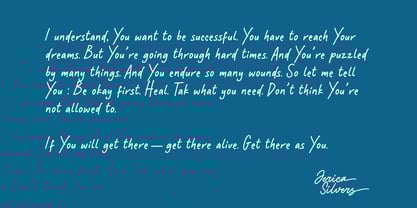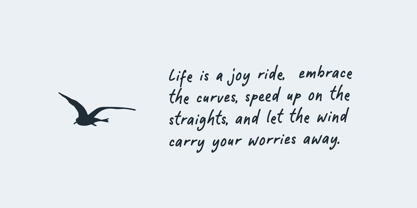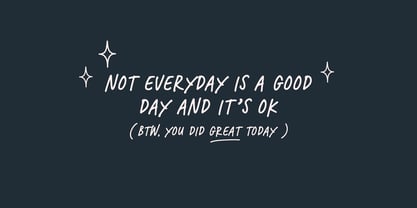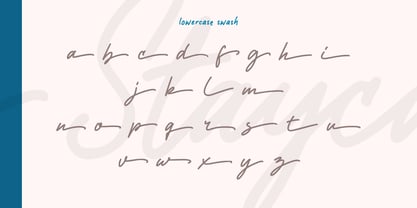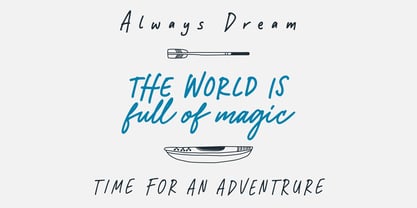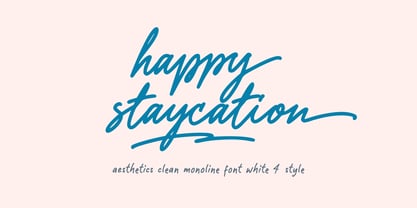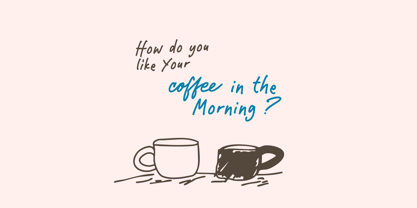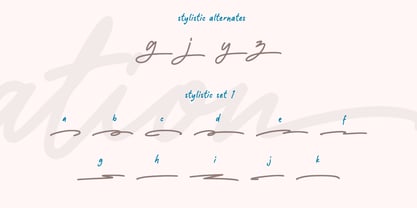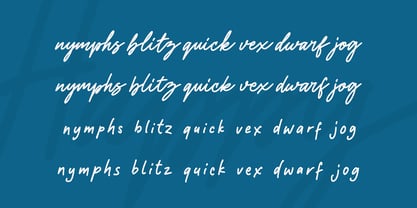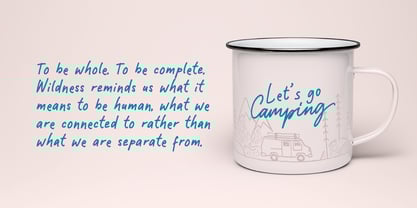
Happy Staycation
by Enbe Studio
The Happy Staycation Font Family was designed by Winarno, Eko Kurniawan and published by Enbe Studio. Happy Staycation contains 4 styles and family package options. More about this family
This font combines the beauty of a single, uniform line with a touch of unexpected uniqueness. Happy Staycation offers a clean, minimalist feel, but with a slightly playful and irregular letter character. Each letter is designed with clean proportions but has elements that give it an unconventional feel, creating a fun and dynamic impression.
Happy Staycation is perfect for creative projects that want to display a modern look with a little twist. Whether it's for logos, branding, posters, or social media, Happy Staycation provides a fresh and unique feel that can attract attention. The combination of high readability and irregular details makes this font perfect for creating a memorable impression in your designs.